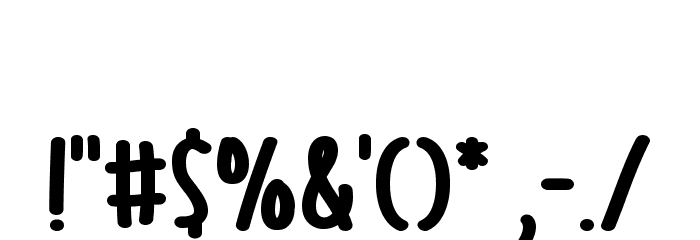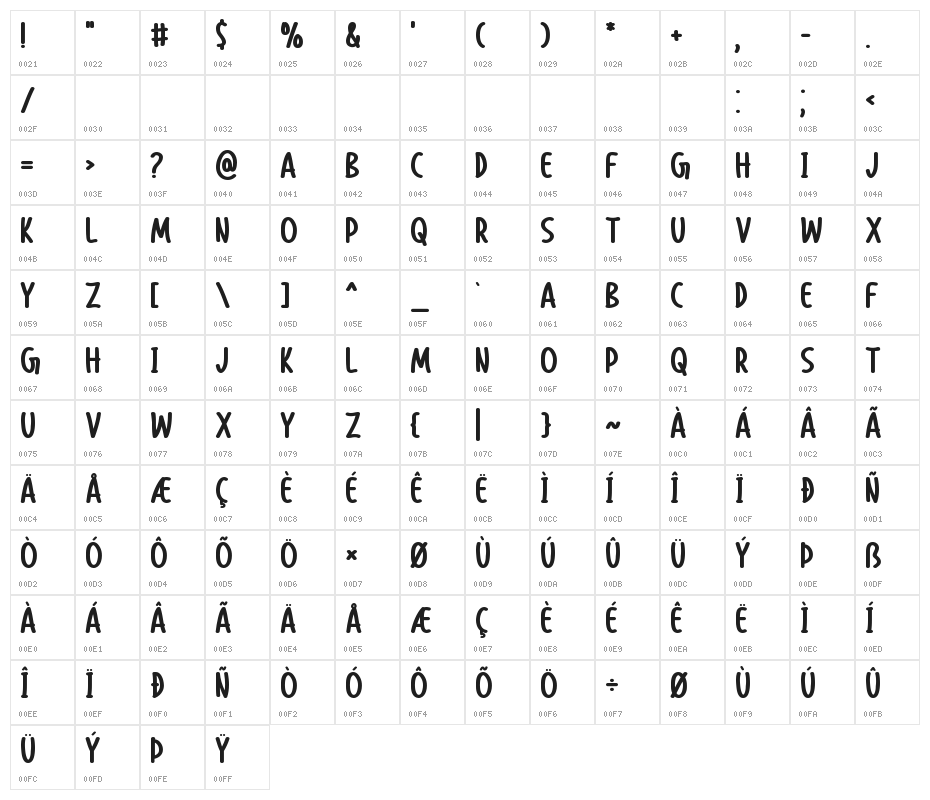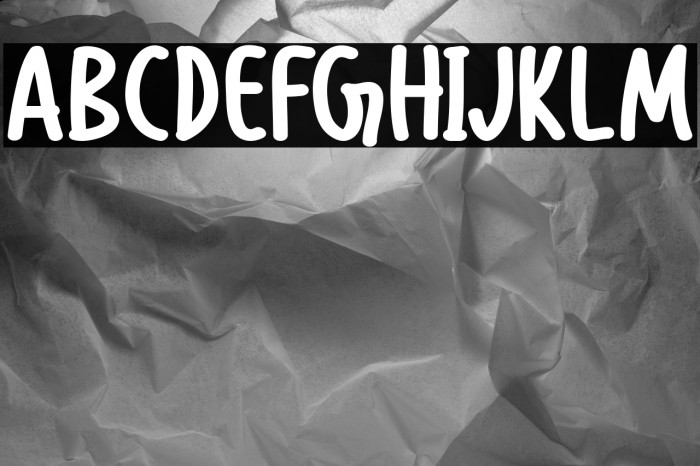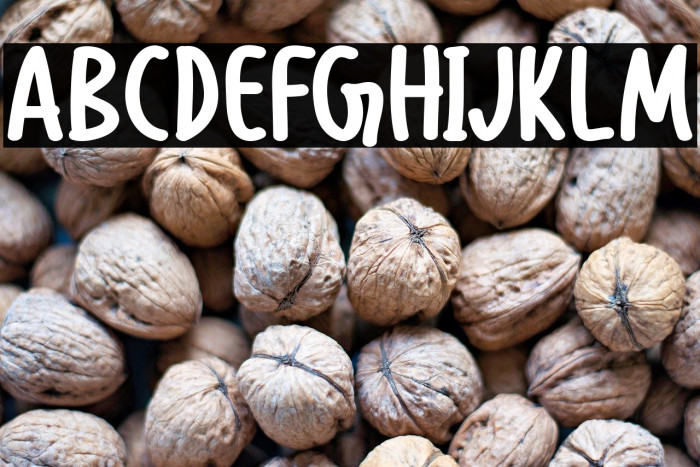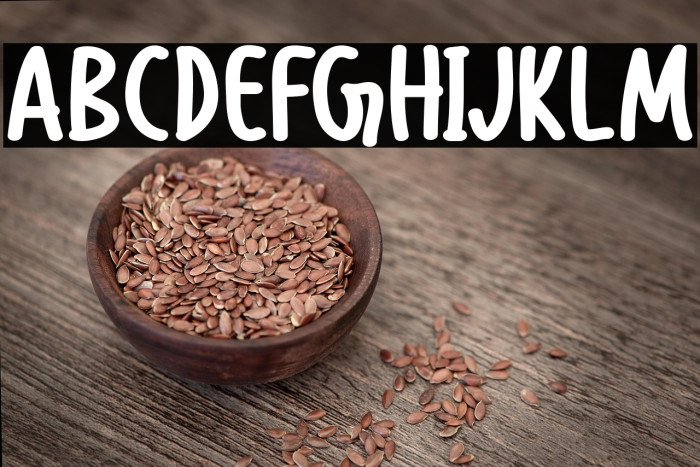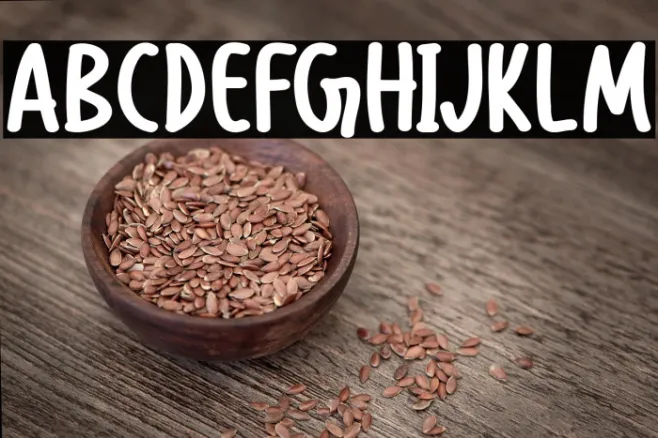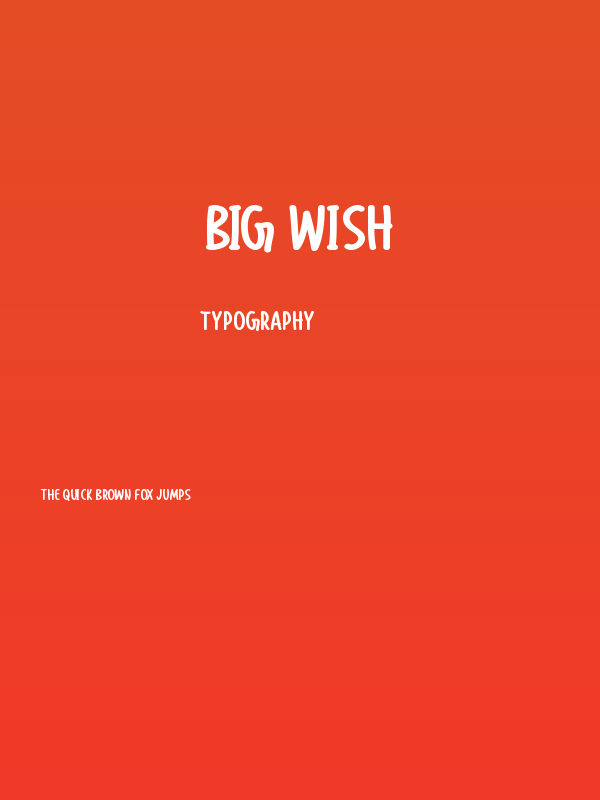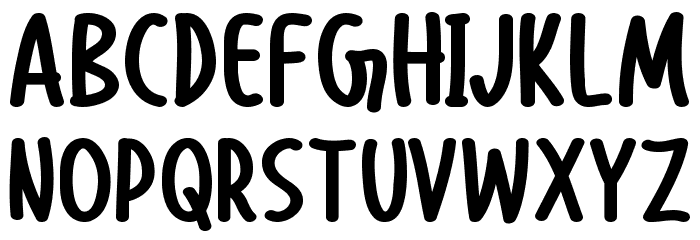
Big Wish Font
Big Wish Description
This font features a playful and bold handwritten style, characterized by its rounded and slightly irregular letterforms. The strokes are thick and consistent, giving it a friendly and approachable appearance. The uppercase and lowercase letters maintain a uniform height, enhancing readability while adding a touch of whimsy. The special characters and numbers follow the same design principles, ensuring a cohesive look across all text. This font's unique charm makes it suitable for projects that require a personal and informal touch.
| Proposed Projects | Ideal for children's books, greeting cards, playful branding, and social media graphics. |